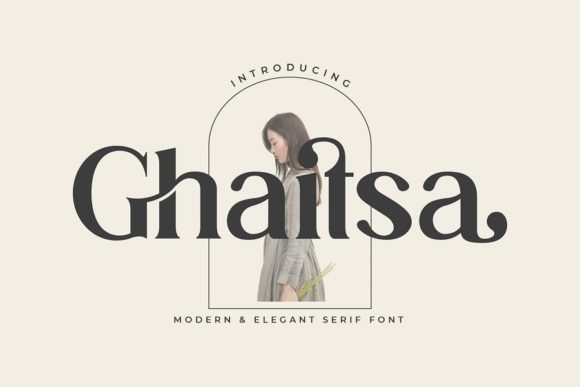
Introducing Ghaitsa, the serif font that exudes elegance and authenticity, meticulously crafted by Aqeel_Art. Ghaitsa is not just a font; it's an artistic expression that breathes life into your designs, making them stand out from the ordinary.
With Ghaitsa, you have a font that's as versatile as your imagination. Whether you're designing logos that demand attention, creating wedding invitations that radiate romance, or crafting headings that command respect, Ghaitsa rises to the occasion. Its timeless beauty adds a touch of sophistication to t-shirts, letterheads, signage, labels, and even the mundane news.
Ghaitsa's versatility doesn't end there. Unleash your creativity and use it for posters that speak volumes, badges that make a statement, and countless other projects that need a touch of elegance. Ghaitsa effortlessly blends with various design styles, becoming an integral part of your artistic vision.
But what truly sets Ghaitsa apart is its readability, especially in minute text. Its carefully crafted characters ensure clarity and legibility, even at the smallest sizes. This makes Ghaitsa the perfect choice for projects where space is limited, like business cards, product labels, and intricate designs.
With Ghaitsa, you're not just downloading a font; you're embarking on a journey of creativity, where your designs take center stage. Its elegance, versatility, and readability make it the perfect tool for designers of all skill levels. Let Ghaitsa elevate your work and leave a lasting impression on your audience.